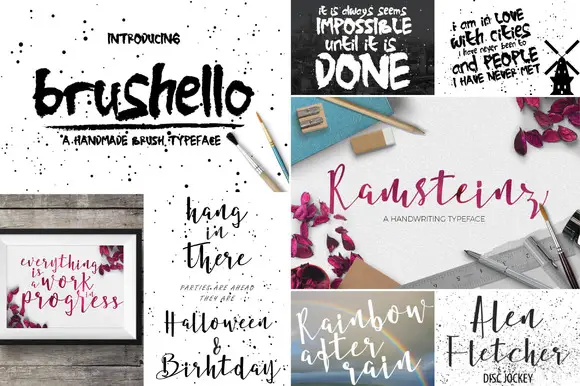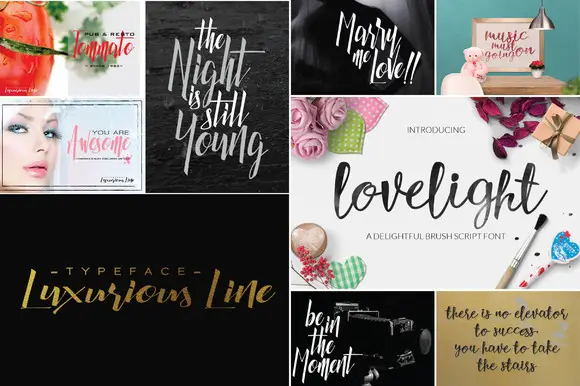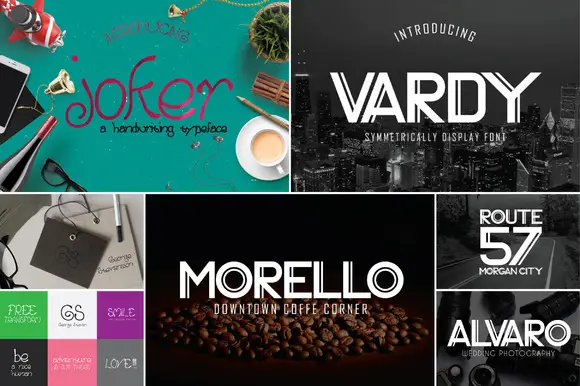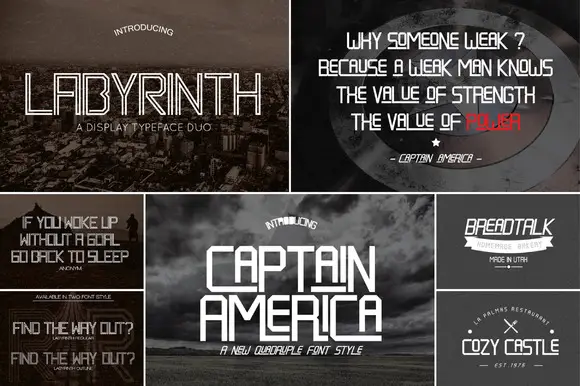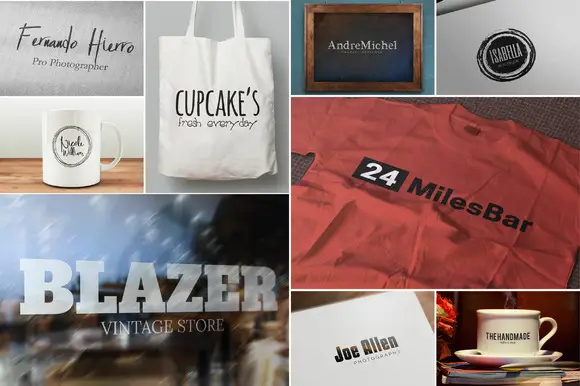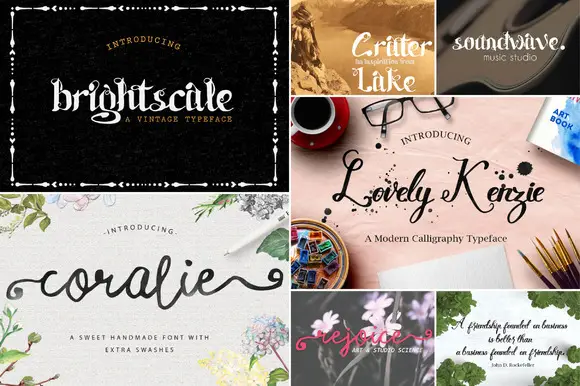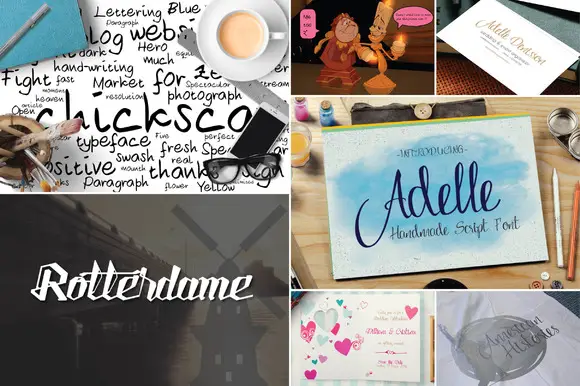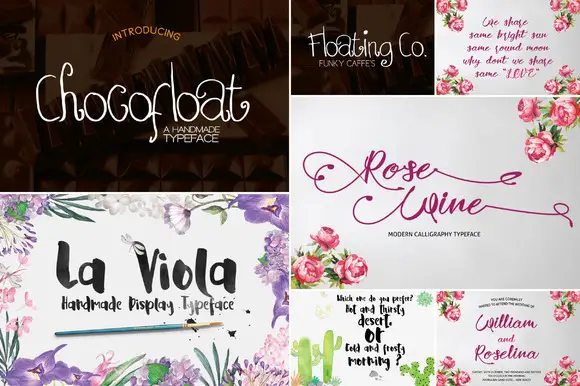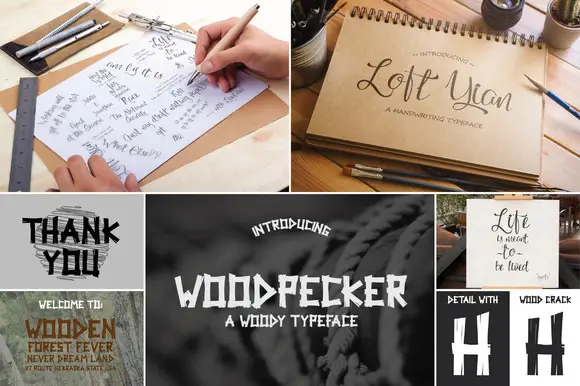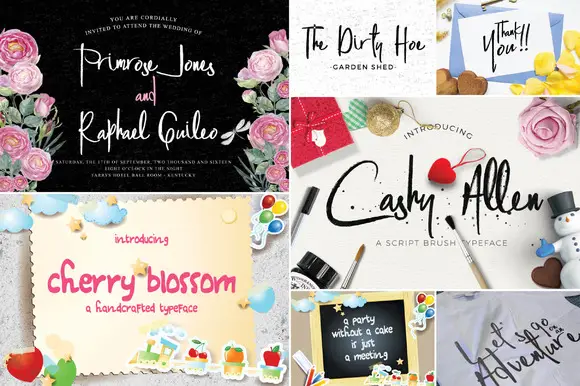
Font Graphic Bundle
The Font Graphic Bundle offers a diverse collection of high-quality fonts designed to elevate your creative projects. This bundle includes a variety of font styles, from elegant serifs to modern sans-serifs, ensuring you have the perfect typeface for any application.
• Multiple font styles including script, display, and sans-serif
• Various weights for added versatility
Utilize these fonts for branding, logo design, web projects, and print materials. The versatility of this bundle makes it suitable for both personal and professional uses.